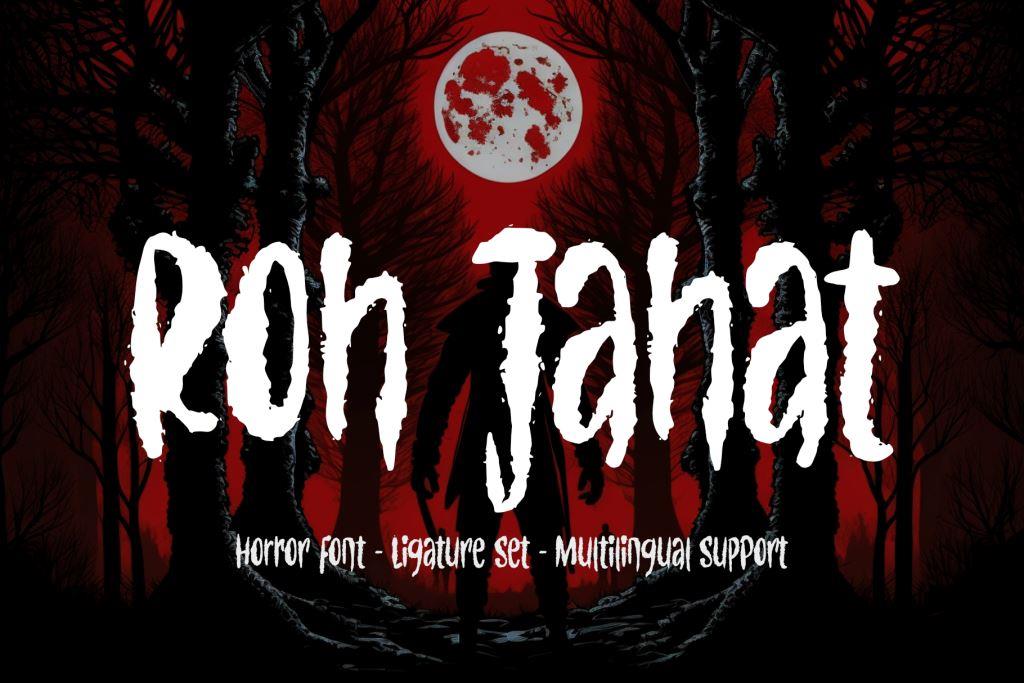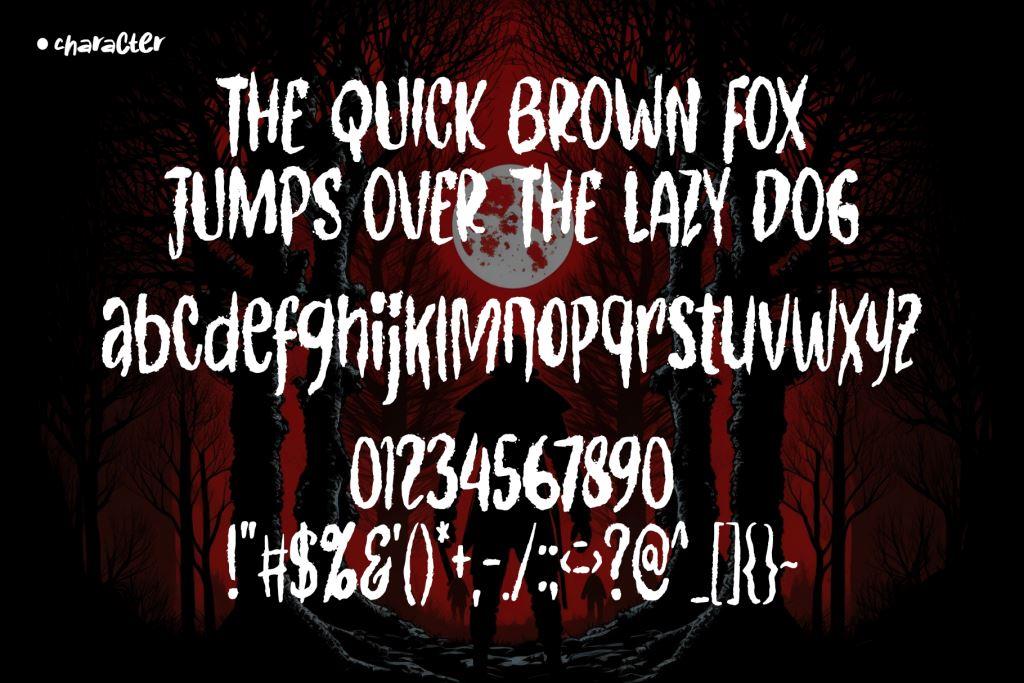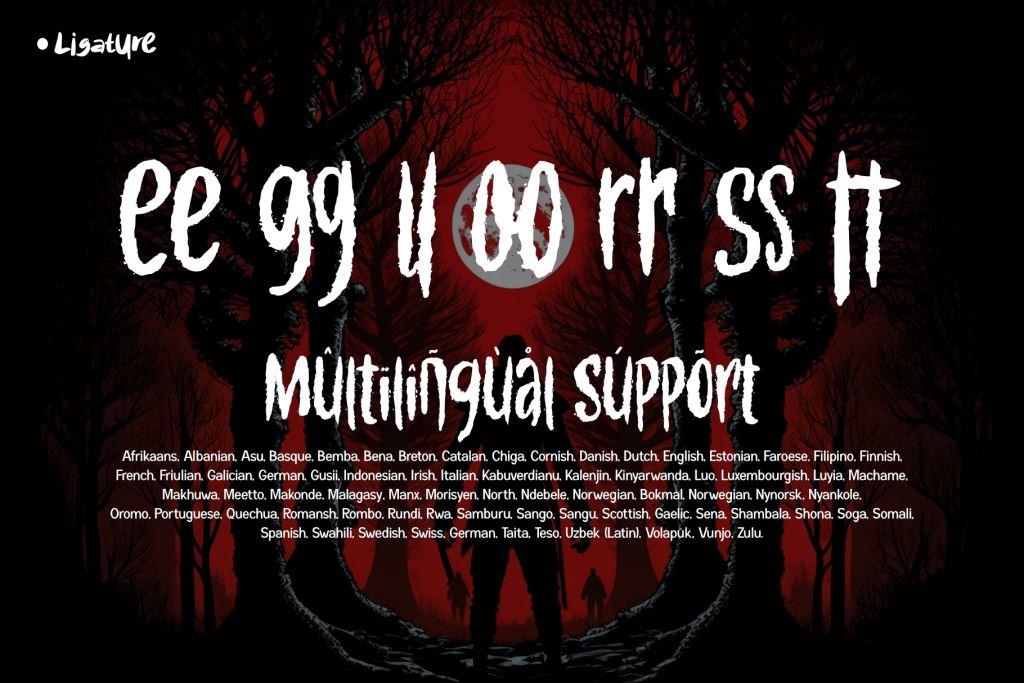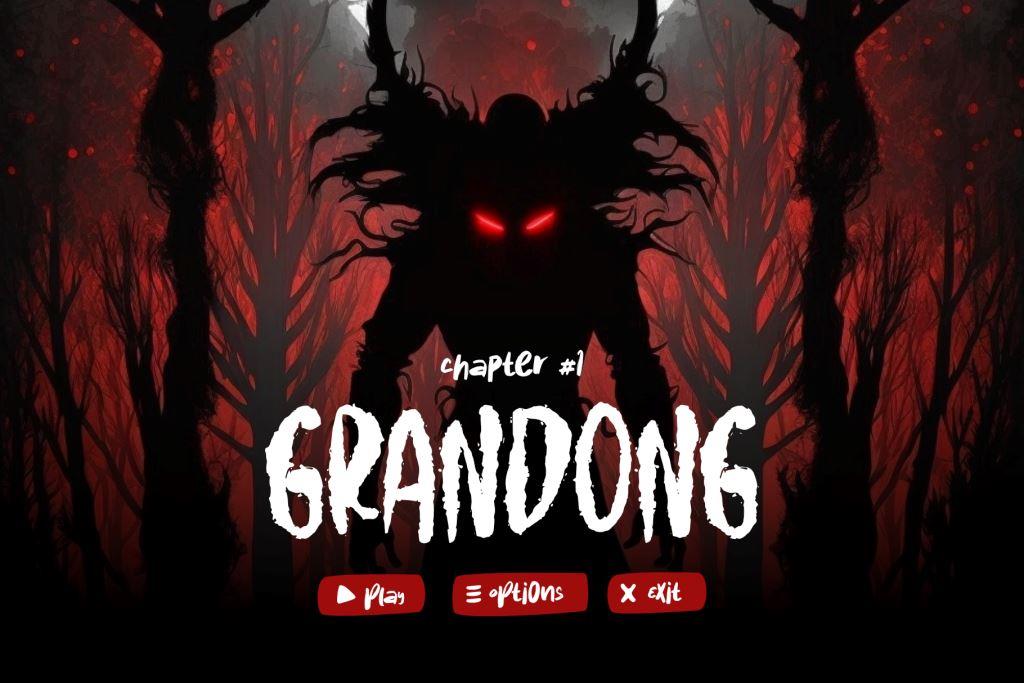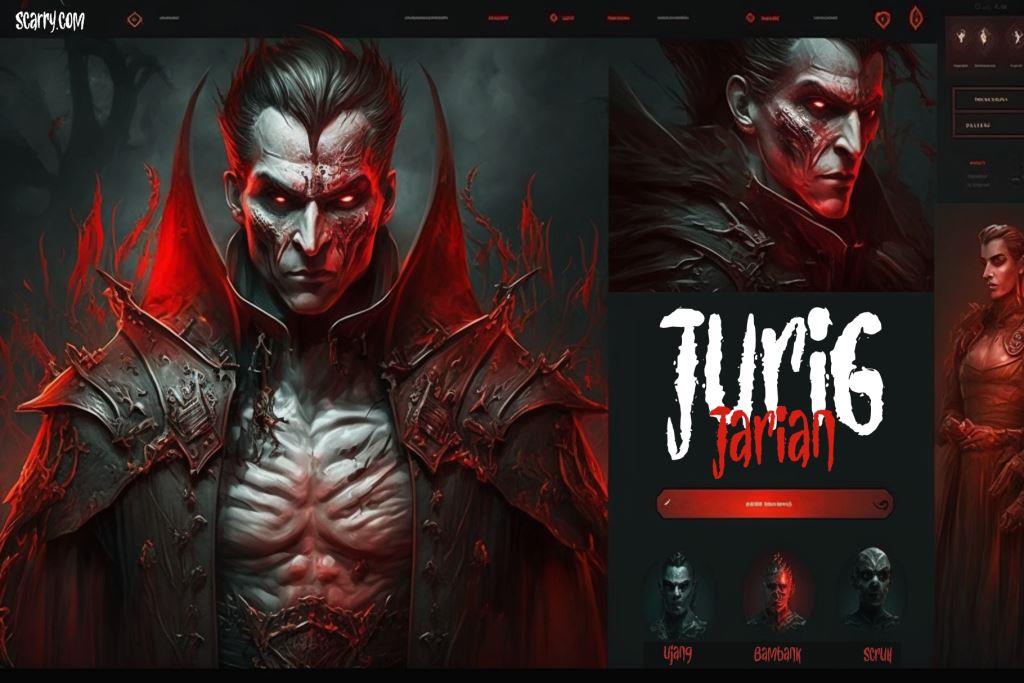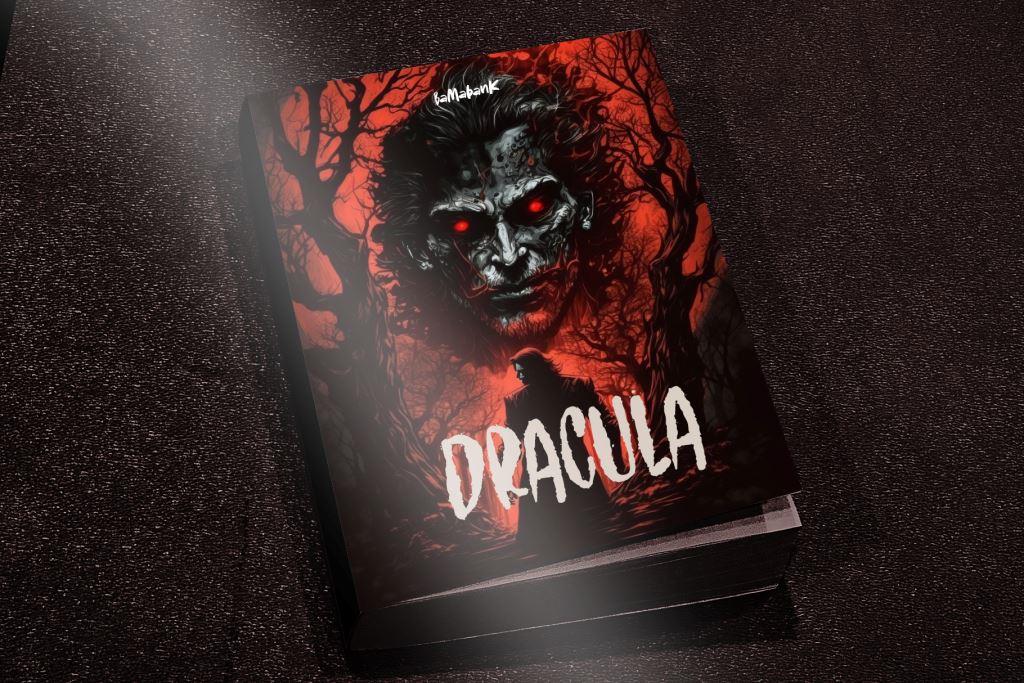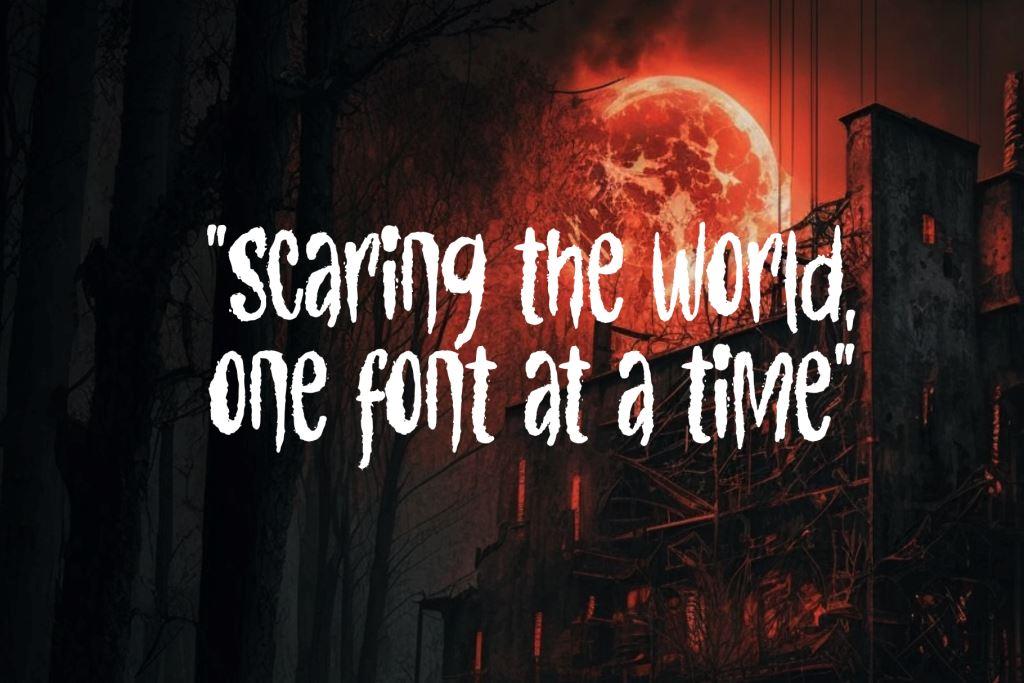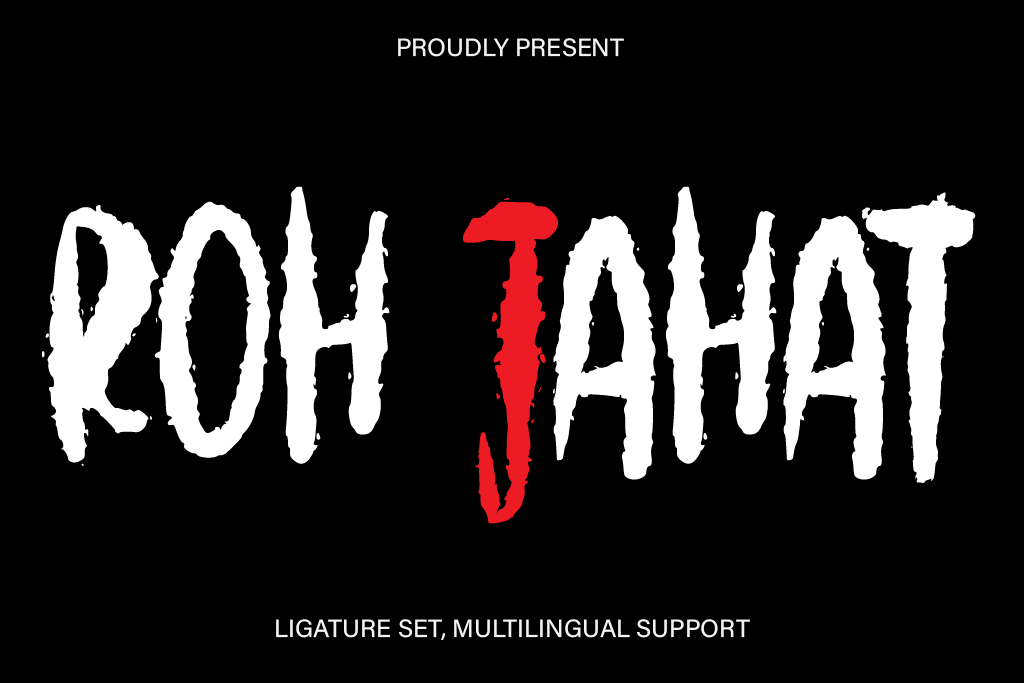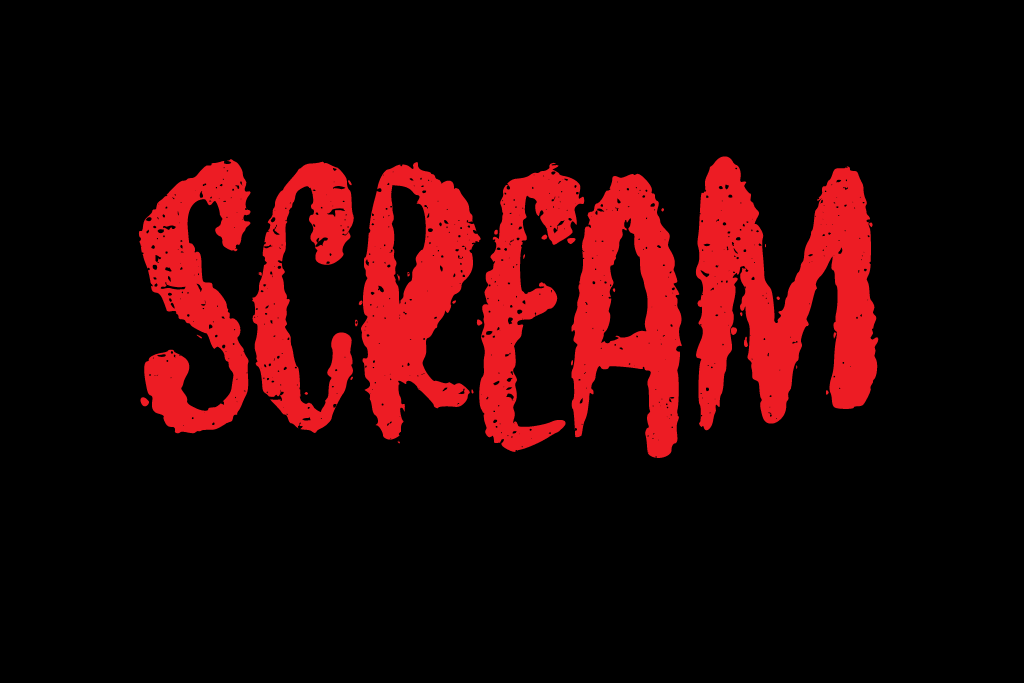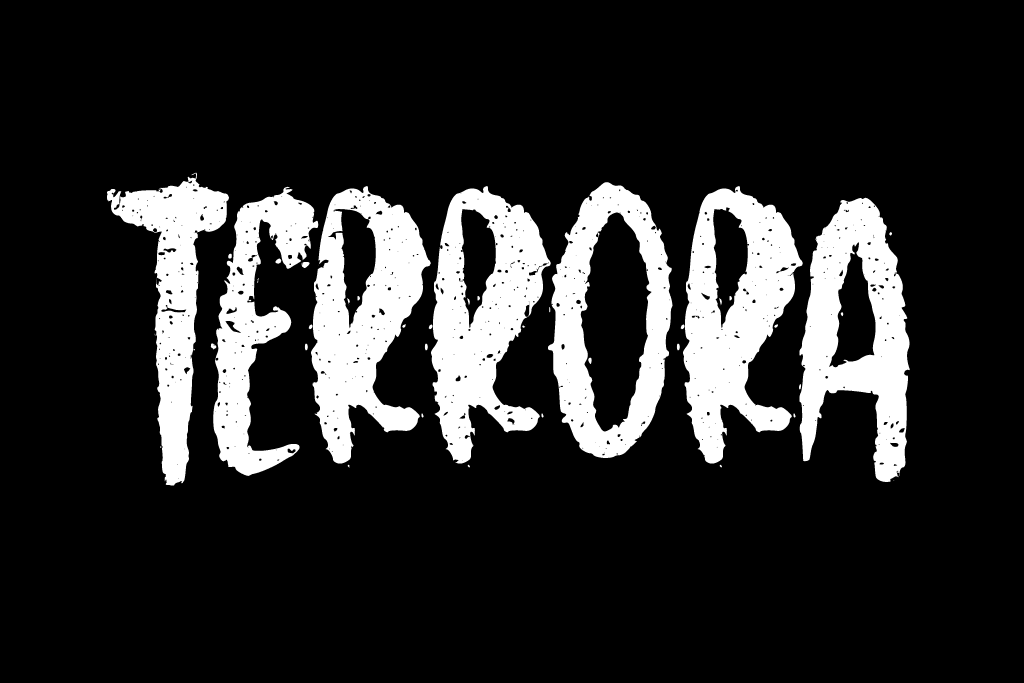
- Roh Jahat
“Roh Jahat” is a font created with a hand-brushed touch to give a scary and eerie impression to your design. Each letter is hand-written to provide a unique and authentic feel to this font. This font is ideal for designers creating projects with horror, thriller, or frightening themes. With “Roh Jahat,” you can give a terrifying touch to posters, novels, films, games, or other design projects. Each bold and thick letter flows perfectly like blood flowing at night, adding a frightening impression to your design. “Roh Jahat” would be the perfect font choice for designers who want to add a terrifying element to their designs.